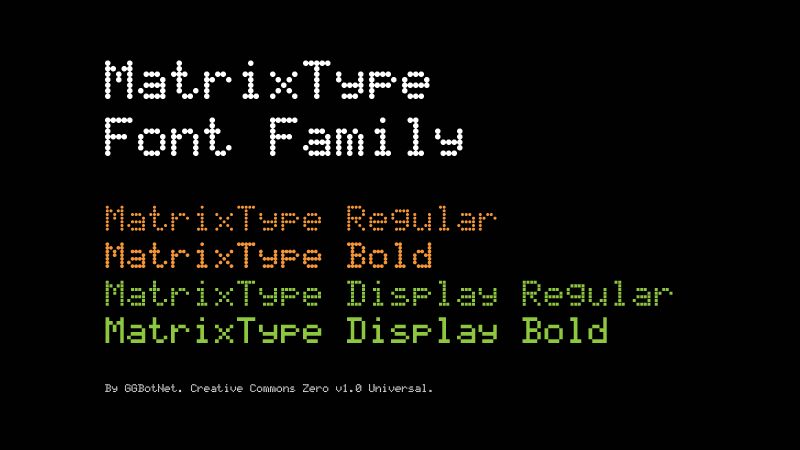
MatrixType Bold font by GGBotNet is a dazzling example of how digital aesthetics can be highlighted in print. With its dark, pixelated appearance and readable letters, MatrixType shapes the outlines of your texts which gives them an authentic technological effect and an adaptable nostalgic, futuristic or video game vibe.
A fun addition to numerous themed designs, this free display font can be added to techno/retro-related projects like album art covers for synthwave genre music or magazine covers. Readers will enjoy the unusual experience offered on websites for coding classes/events or IT companies or via stylish commercial advertisements and they’ll come back running for more!